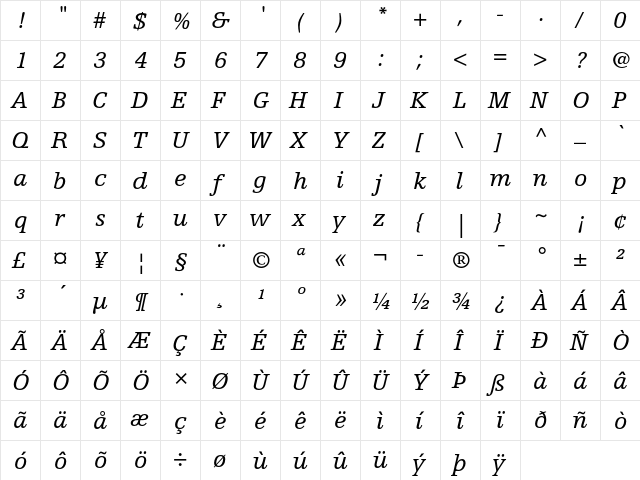
Egyptienne F 56 Italic
Design Context for Egyptienne F Typeface
Egyptienne F takes a measured approach to typography — its balanced proportions and neutral character make it a reliable workhorse for both digital and print work. The slanted form adds forward momentum and visual energy.
Pro Tip: Use Egyptienne F for emphasis, pull quotes, and subheadings where its slanted energy can add rhythm to the layout.